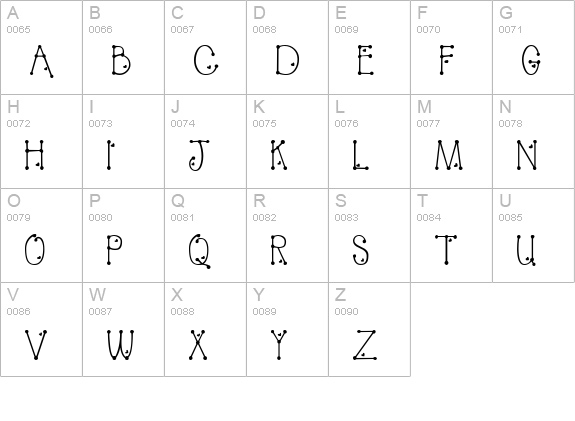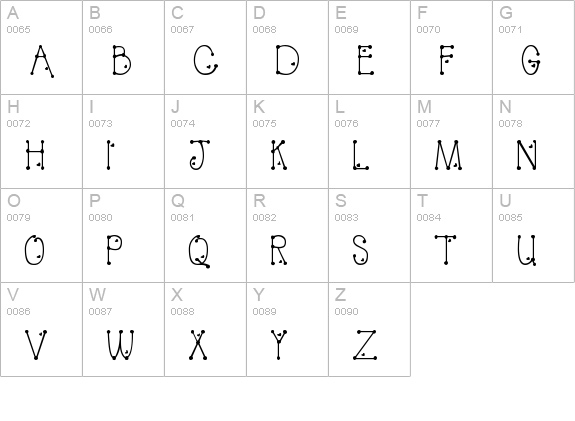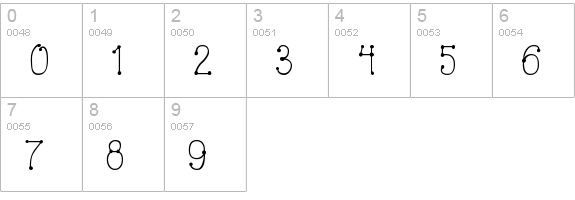
PeggyFont Light Font Details
PeggyFont Light is a refined, elegant variant in the PeggyFont typeface family \xE2\x80\x94 well suited to elegant body text, refined sub-headings, and luxury branding.
PeggyFont Light is a stunning and elegant font that effortlessly combines modern simplicity with a touch of sophistication. Its sleek and clean lines make it perfect for any project, whether it's a logo, website design, or even a wedding invitation. With its delicate and refined letterforms, PeggyFont Light adds a graceful and stylish element to any design. But what sets PeggyFont Light apart is that it is not only beautiful but also free. Yes, you read that right! This incredible font is freely available to download at FontsMarket.com. You no longer have to worry about breaking the bank to add a touch of class to your designs. With PeggyFont Light, you can create stunning visuals without having to spend a dime. Whether you're a professional designer or someone who loves to experiment with typography, PeggyFont Light is a must-have in your font collection. Its versatility and timeless appeal make it suitable for a wide range of projects. From corporate branding to personal projects, this font will elevate your designs and leave a lasting impression. With its generous x-height and impeccable letter spacing, PeggyFont Light offers excellent legibility, ensuring that your message comes across loud and clear. Its subtle curves and gentle strokes add a sense of harmony and balance, making it a joy to read and work with. So why wait? Download PeggyFont Light for free at FontsMarket.com and transform your designs into works of art. Whether you're looking to create a professional logo or add a touch of elegance to your next project, PeggyFont Light has got you covered. Don't miss out on this incredible opportunity to enhance your designs with a beautiful and free font.